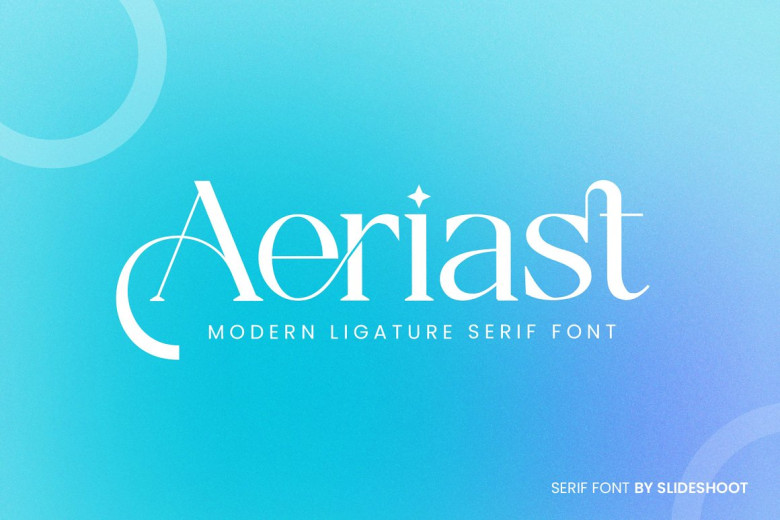
Aeriast Font
Aeriast Serif is an elegant and balanced serif font. It boasts sleek lines with elegant curves that makes this design truly breathtaking, making it suitable for invitation cards, corporate logos, movie titles and film names as well as books titles brands and many other designs.
Aeriast Serif exudes sophistication and class; featuring stylish ligatures and alternations this font provides the ideal complement to any project.
Aeriast Serif Font